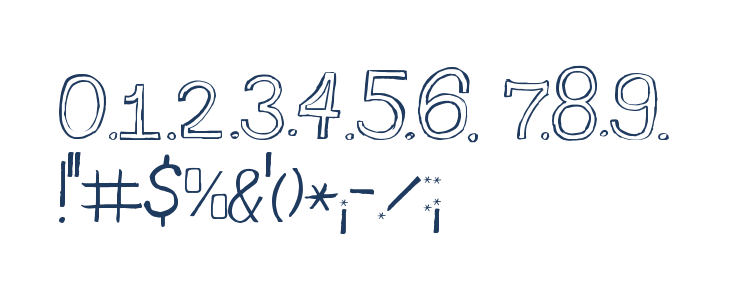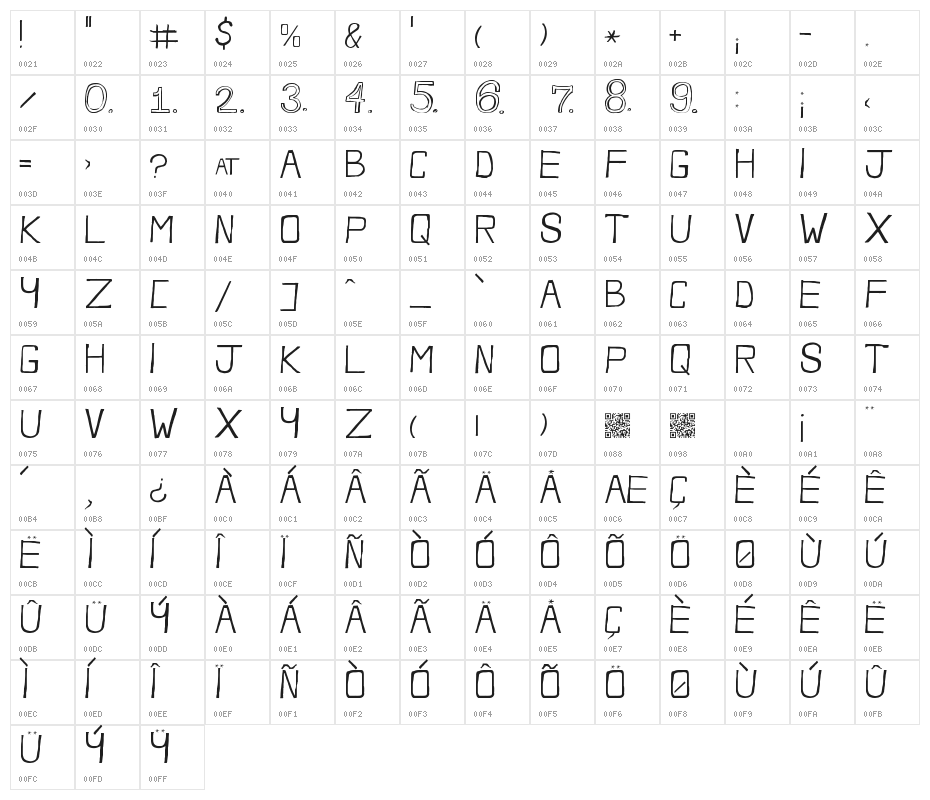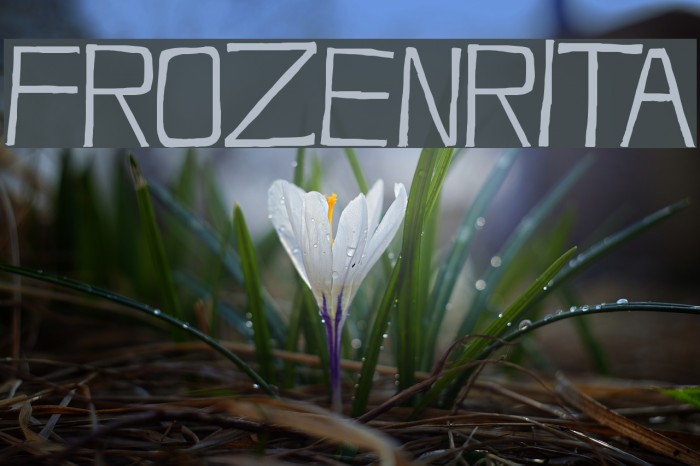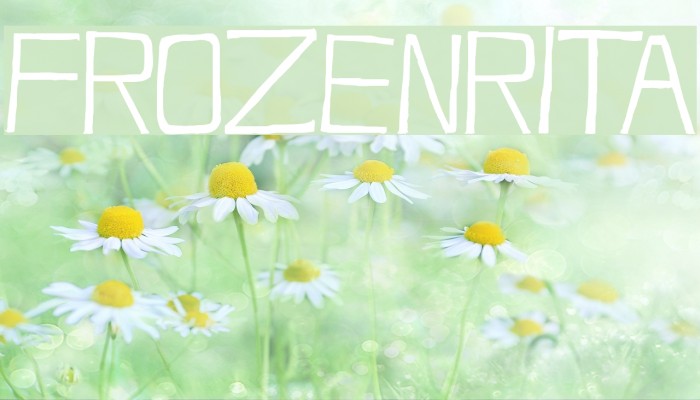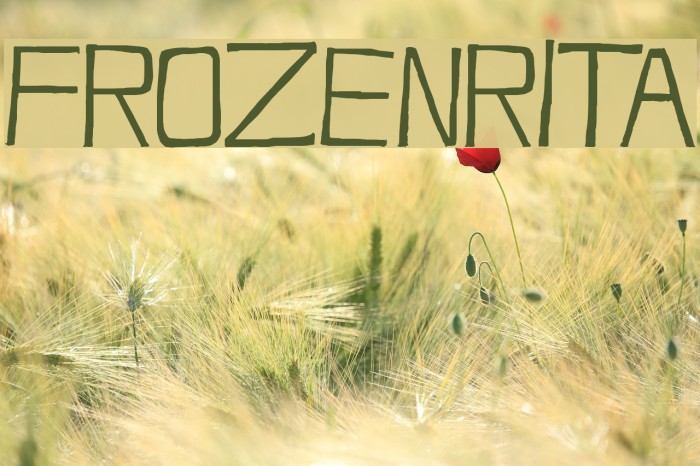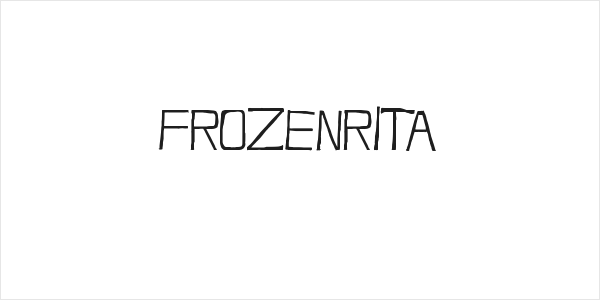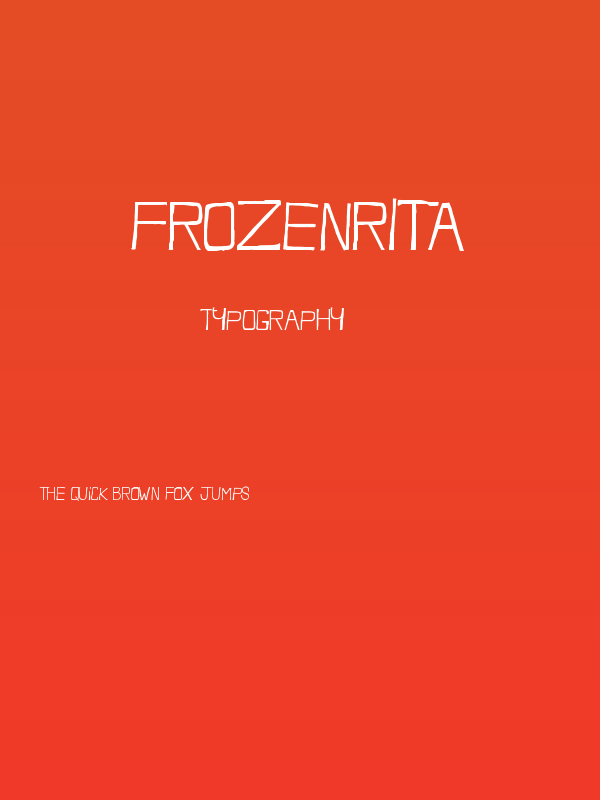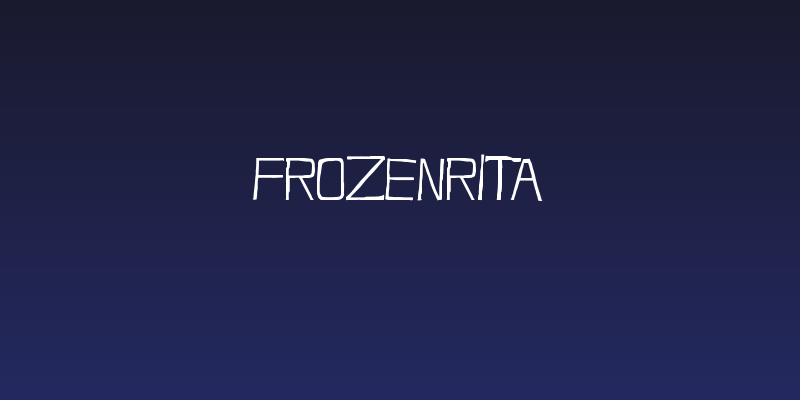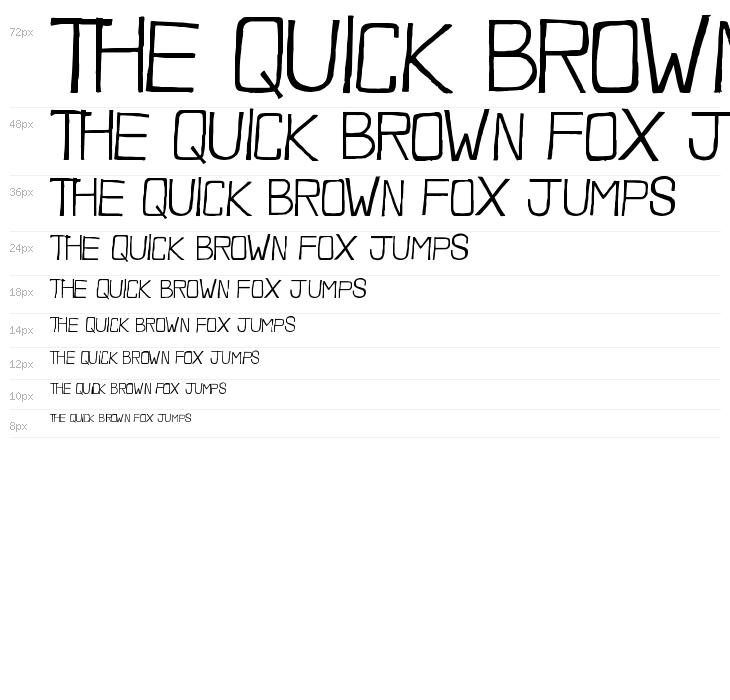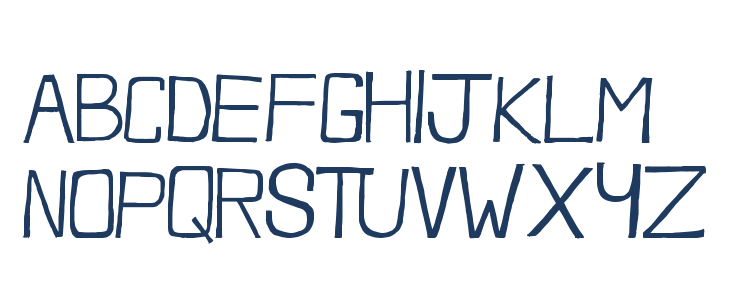
FrozenRita Font
FrozenRita Description
This font features a unique, hand-drawn style with a playful and slightly irregular appearance. The uppercase letters are tall and narrow, with a distinct angularity that adds a modern edge. The lowercase letters maintain the same quirky style, providing a cohesive look throughout. Numbers and special characters are designed with the same attention to detail, ensuring consistency across all elements. The font's overall aesthetic is casual yet sophisticated, making it versatile for various design needs. Its distinctive character makes it stand out, while still being legible and functional.
| Proposed Projects | Ideal for creative projects such as posters, invitations, and branding materials that require a unique and eye-catching typeface. |